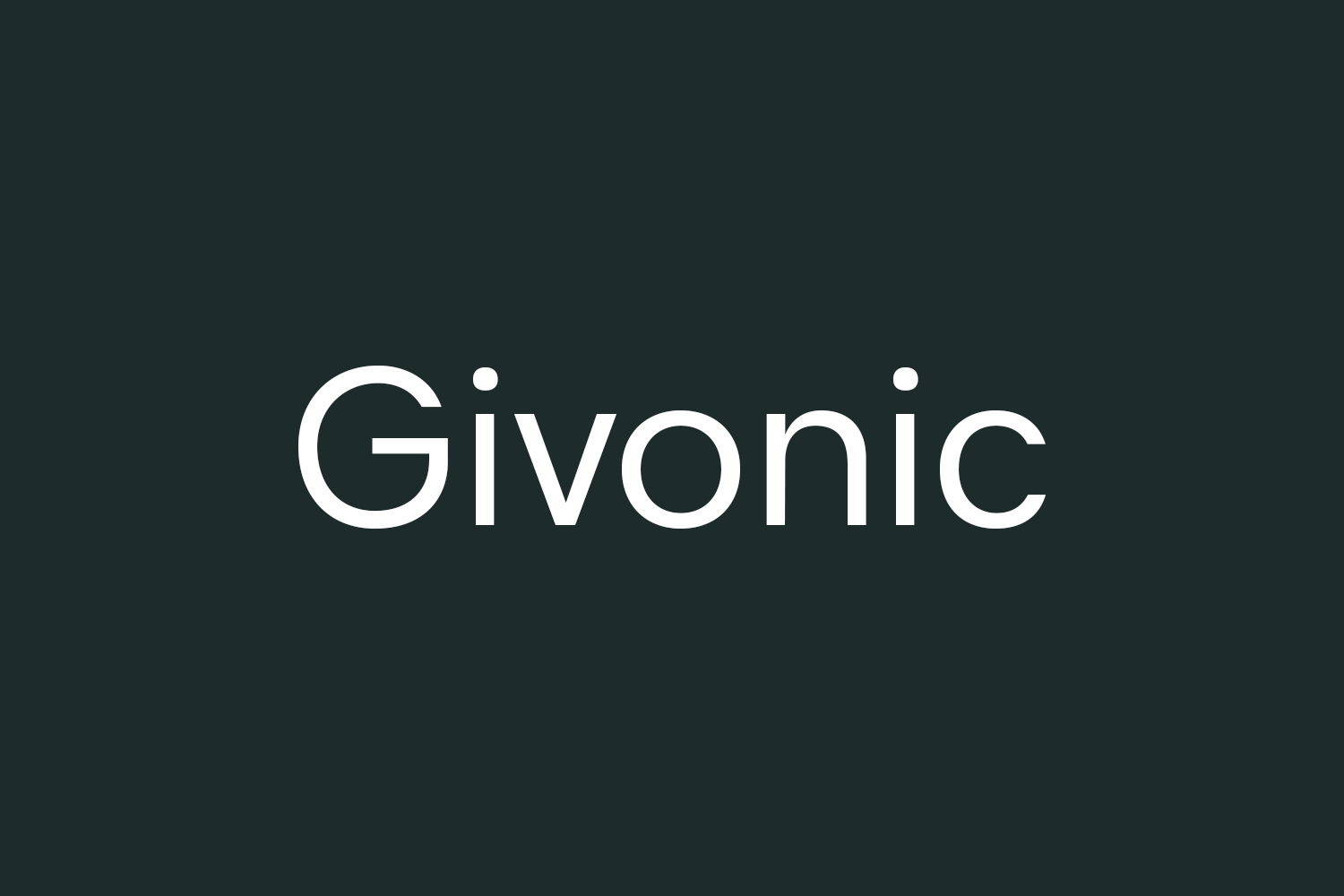
Givonic Free Font exudes a sense of simplicity and elegance with its minimal, clean sans serif design. It evokes feelings of sophistication and modernity, making it the perfect choice for any project seeking a sleek, contemporary look. The clean lines and uncluttered appearance give it a timeless appeal, while the sans-serif style adds a touch of minimalism and understated elegance. Overall, the Givonic Free Font is a versatile and emotive typeface that is sure to make a lasting impression.
Designed by Letterhend Studio